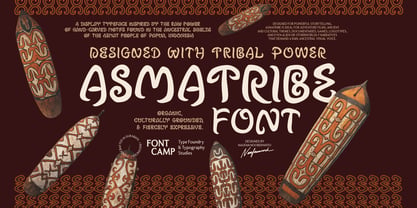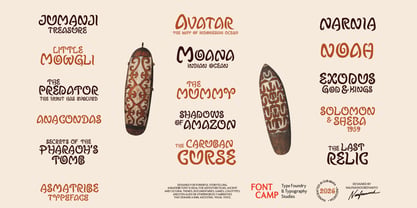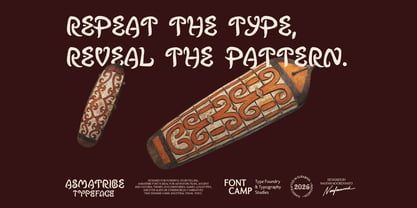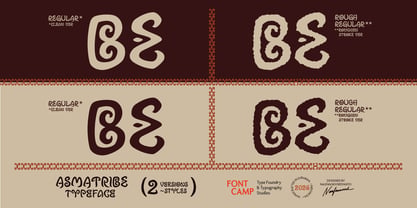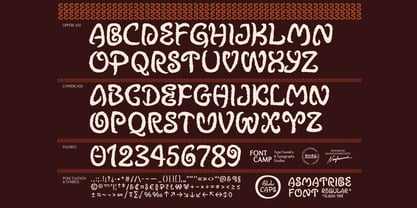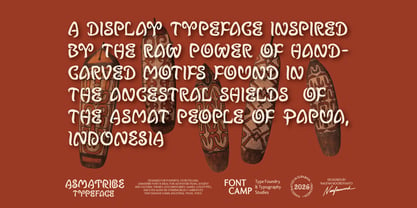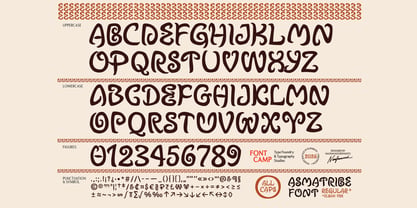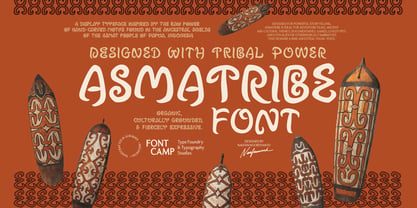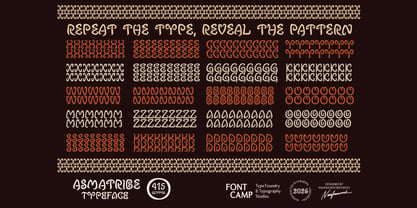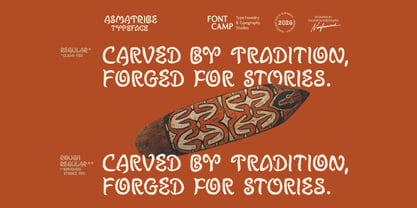
Asmatribe
von Fontcamp
Die Schriftfamilie Asmatribe wurde von Naufan Noordyanto entworfen und von Fontcamp veröffentlicht. Asmatribe enthält 2 Stile und Familienpaketoptionen. Mehr über diese Familie
Introducing an "ASMATRIBE" Font. DESCRIPTION: Organic, ancestral, and fiercely expressive. “Asmatribe” is a display typeface deeply rooted in the ancestral woodcarving traditions of the Asmat people of Papua, Indonesia. The name is a fusion of "Asmat" and "Tribe," honoring the cultural identity of the region. Every character is meticulously crafted to reflect the bold, organic motifs found on traditional Asmat shields. By embracing hand-wrought imperfections and rugged, distinctive lines, Asmatribe brings an authentic, artistic, and raw ethnic energy to your designs. It is the perfect choice for projects seeking a powerful cultural narrative and a handmade touch. Designed for powerful storytelling, Asmatribe is ideal for adventure films, ancient and cultural themes, documentaries, games, tribal logotypes, and even alien or otherworldly narratives that demand a raw, ancestral visual voice. Type. Repeat. Transform: Rooted in ancestral motifs, Asmatribe extends beyond letters—its repetition create bold typographic patterns. METADATA: Font Name: Asmatribe (Regular & Rough Regular); Style: Regular (clean stroke version) and Rough Regular (a regular font with a rough stroke); Features: 415 glyphs; supporting 85 languages (including diacritics); All caps with different letterforms. Version1.000, released on January 2026. CREDIT: Designer: Naufan Noordyanto; Kerning: Naufan Noordyanto; Manufacturer: Fontcamp Type Foundry and Typography Studies. We craft and distribute fonts and custom typography. We foster typographic appreciation through design exhibitions, publications, and education. Fontcamp Type Foundry - Crafted in Indonesia. Tag or mention us on Instagram @itsfontcamp and @naufannoord — we’d love to see how you use Asmatribe font!
Designer: Naufan Noordyanto
Aktuelle Foundry: Fontcamp